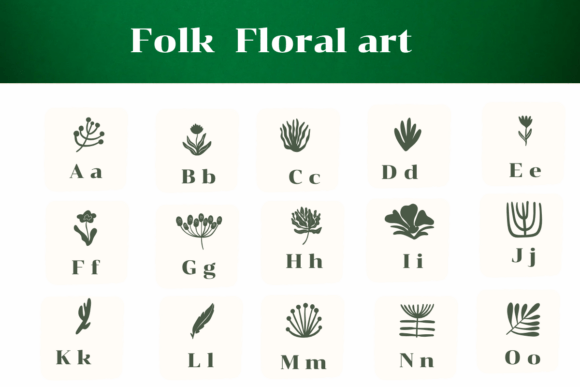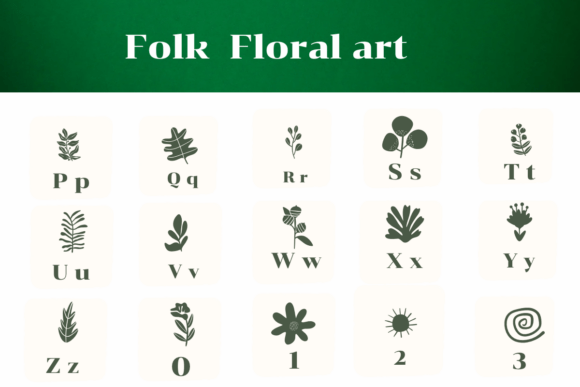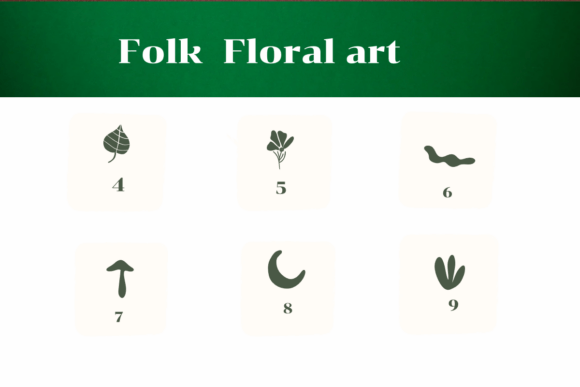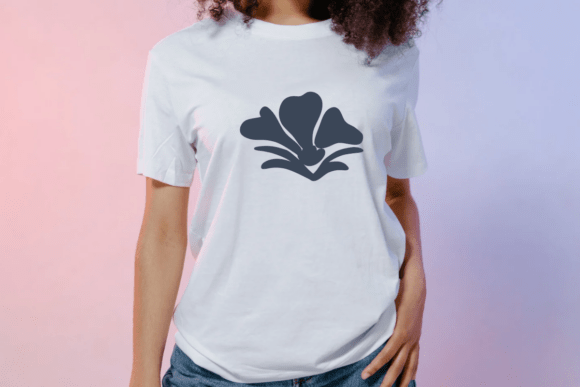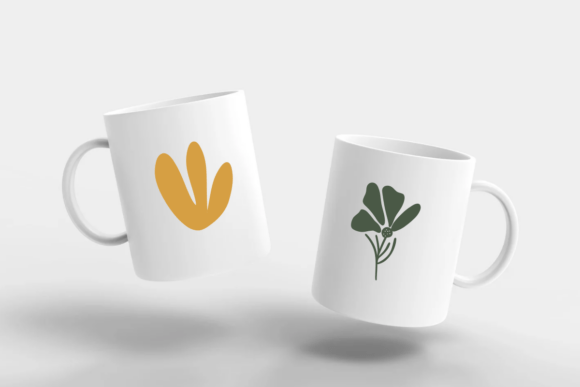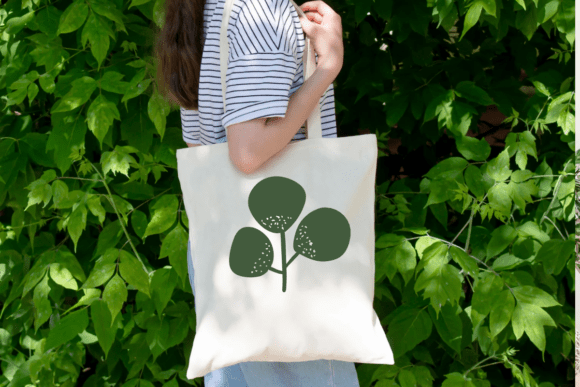
Bring Timeless Charm to Your Designs with Folk Floral Art Font
Are you looking for a unique and charming font to add a touch of organic elegance to your designs? Look no further than Folk Floral Art, a delightful dingbats font featuring hand-drawn floral and botanical motifs. Inspired by traditional folk art, this font is perfect for craft projects, fabric prints, scrapbooking, branding, and rustic packaging.
What is Folk Floral Art Font?
Folk Floral Art is a dingbats font that showcases a beautiful collection of hand-drawn floral and botanical motifs. Each glyph is carefully crafted to capture the whimsical charm of traditional folk art, with bold and clean silhouettes that are both elegant and eye-catching. The font features a wide range of motifs, including leaves, wildflowers, and other nature-inspired details that are sure to bring a touch of timeless charm to your designs.
Key Features of Folk Floral Art Font
- Hand-drawn motifs: Each glyph in Folk Floral Art is carefully hand-drawn to ensure a unique and organic feel.
- Traditional folk art inspiration: The font is inspired by traditional folk art, giving it a charming and whimsical feel.
- Bold and clean silhouettes: The font features bold and clean silhouettes that are perfect for a wide range of design applications.
- Wide range of motifs: The font includes a wide range of motifs, including leaves, wildflowers, and other nature-inspired details.
- Perfect for craft projects: Folk Floral Art is perfect for craft projects, fabric prints, scrapbooking, branding, and rustic packaging.
Uses for Folk Floral Art Font
Folk Floral Art is a versatile font that can be used in a wide range of design applications. Here are some ideas to get you started:
- Craft projects: Use Folk Floral Art to add a touch of charm to your craft projects, such as card making, paper crafting, and DIY gifts.
- Fabrics and textiles: The font is perfect for fabric prints, scarves, and other textiles.
- Scrapbooking: Add a touch of elegance to your scrapbook pages with Folk Floral Art.
- Branding and packaging: Use the font to create unique and eye-catching branding and packaging for your products.
- Rustic and vintage designs: Folk Floral Art is perfect for rustic and vintage-inspired designs, such as wedding invitations, signs, and decorations.
Why Choose Folk Floral Art Font?
There are many reasons why you should choose Folk Floral Art for your next design project. Here are a few:
- Unique and charming: The font is truly unique and charming, making it perfect for designers who want to stand out from the crowd.
- Scalable: The font is scalable, making it perfect for use in a wide range of design applications, from business cards to billboards.
If you’re looking for a unique and charming font to add a touch of organic elegance to your designs, look no further than Folk Floral Art. With its hand-drawn floral and botanical motifs, traditional folk art inspiration, and bold and clean silhouettes, this font is perfect for craft projects, fabric prints, scrapbooking, branding, and rustic packaging. So why wait? Download Folk Floral Art today and bring timeless charm to your designs!